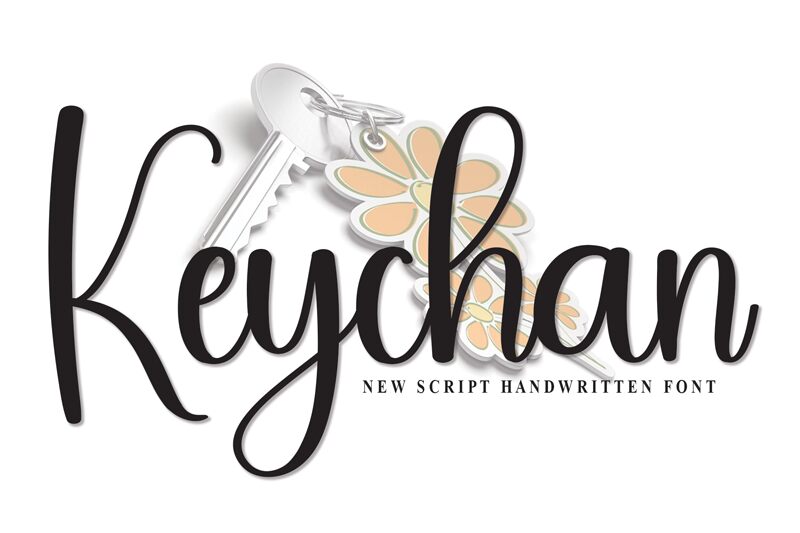
Keychan
Keychan font is an elegant creation from Scratchones that embodies a gorgeous handwritten style. This expressive script font captures the essence of flowing handwriting in each and every letter and glyph. It has a sophisticated compressed shape that makes for an airey overall feel which is emphasized by lines that vary in thickness. Notice how this entire element combination works in favor of one captivating typography design.
Hypnotize your audience with Keychan’s elegance by putting it on magazine covers, or using it for advertising, branding, packaging design, invitations, apparel items, cards and stationery. This free handwritten font will look wonderful in logos crafted for cafes or bakeries!